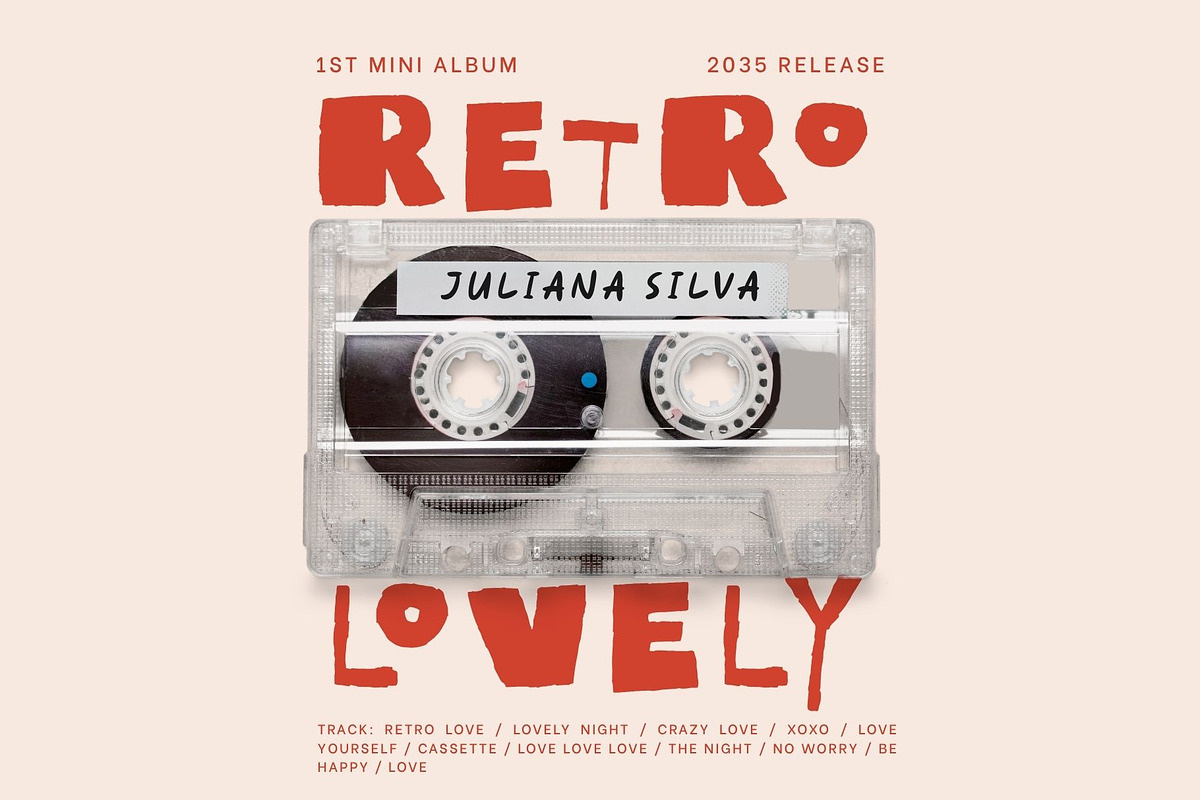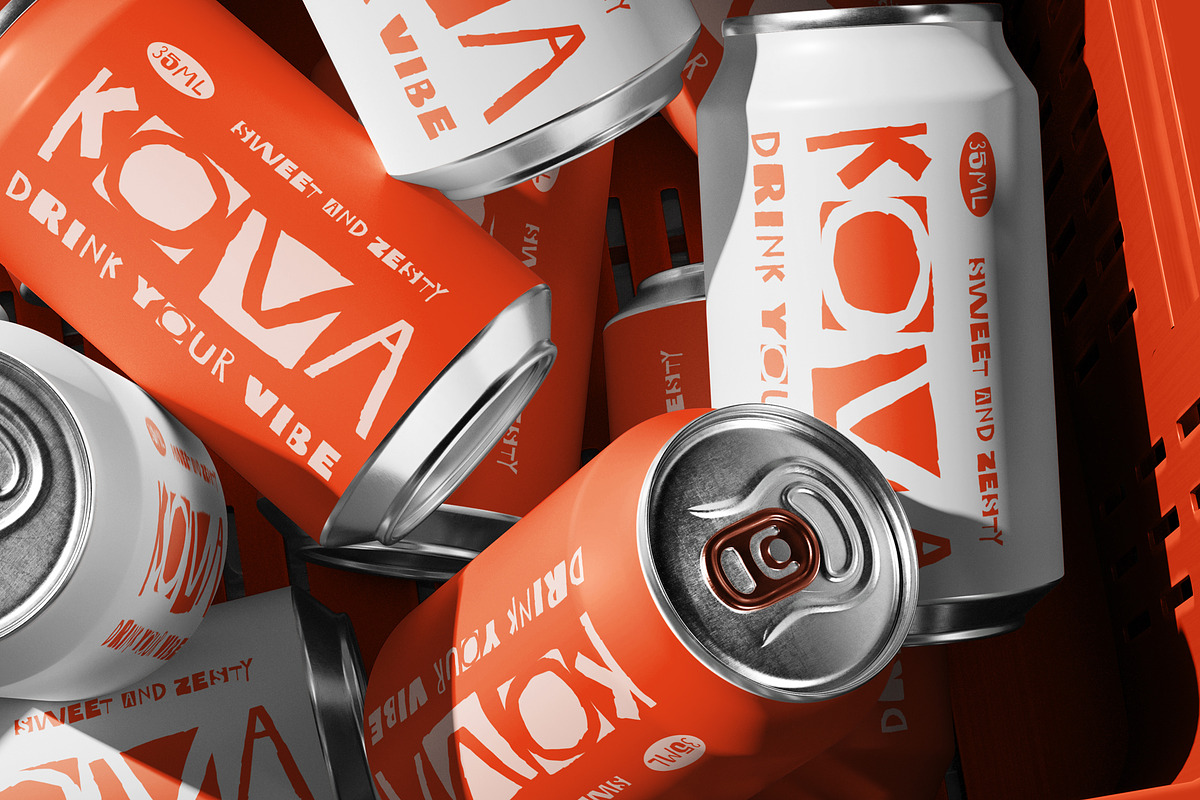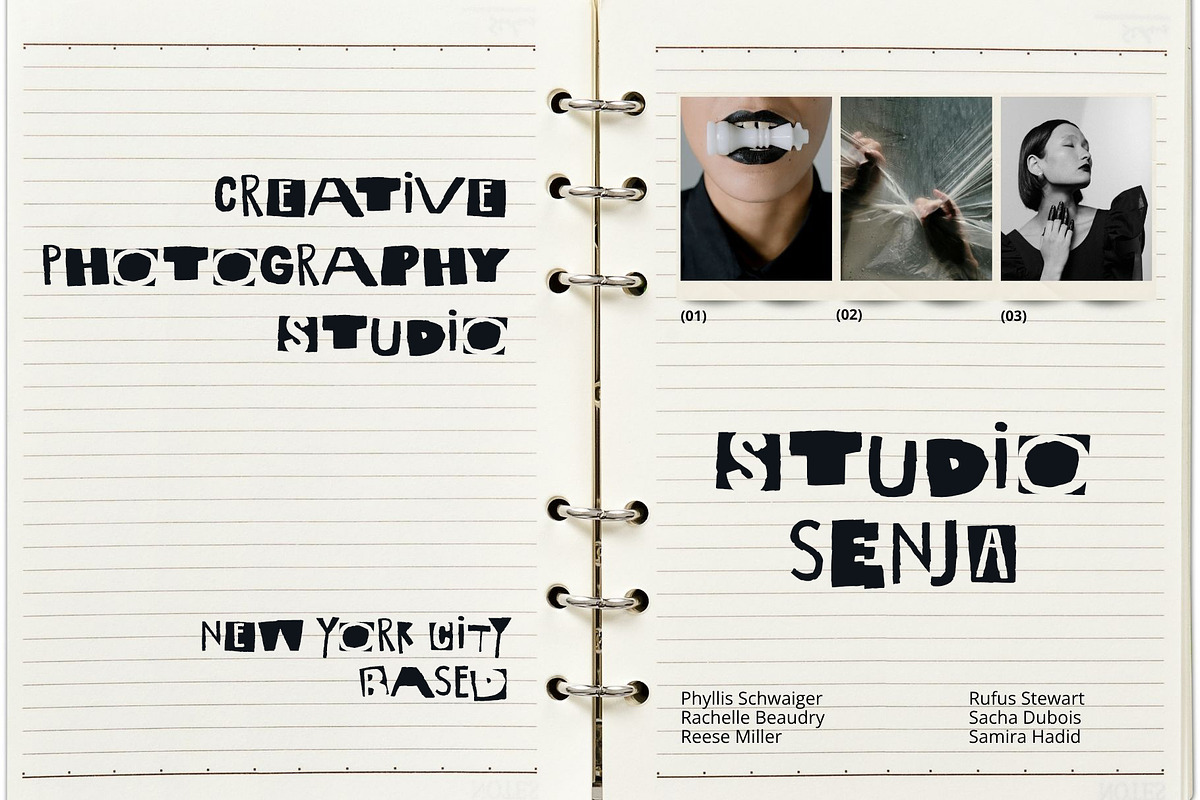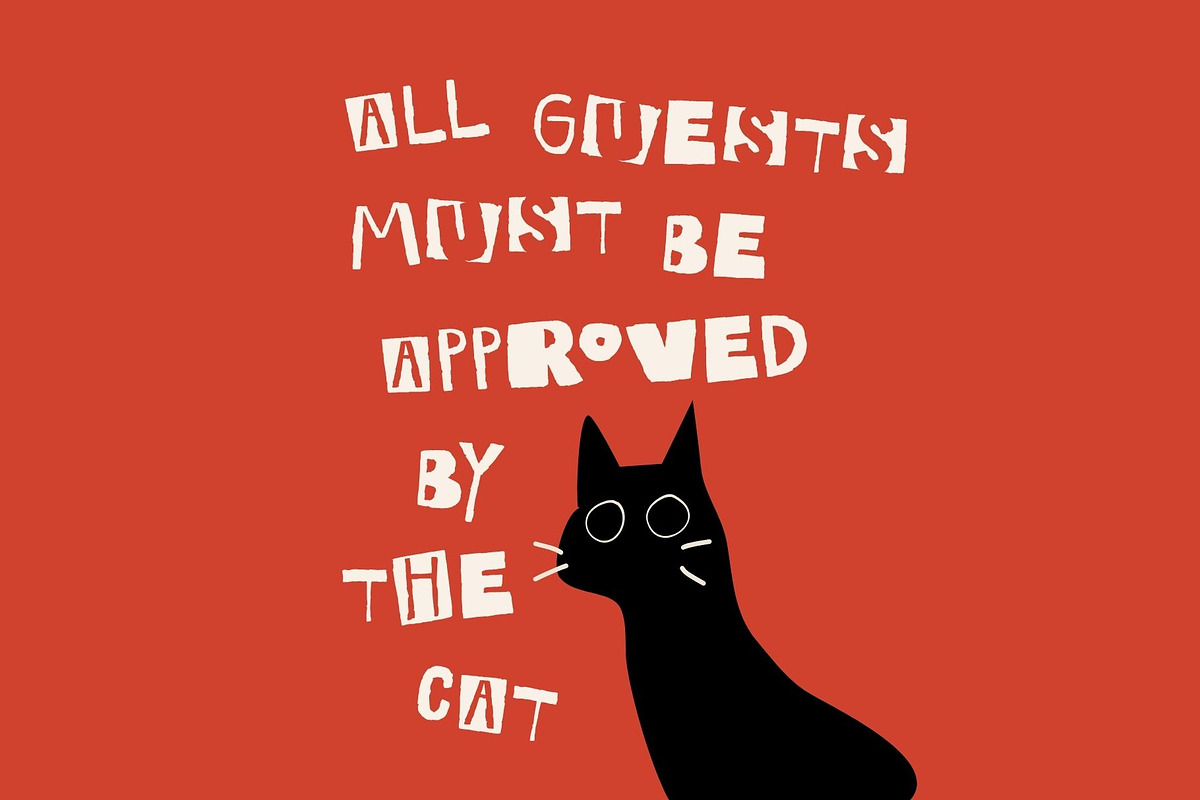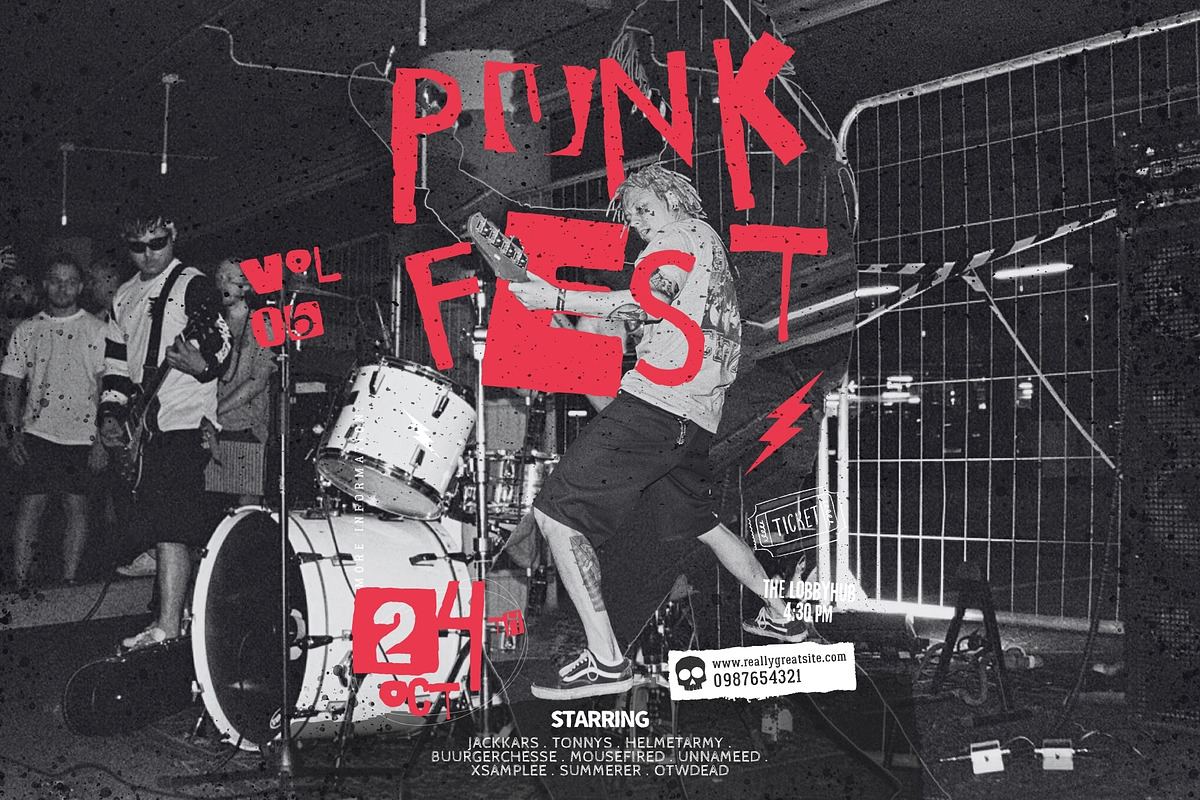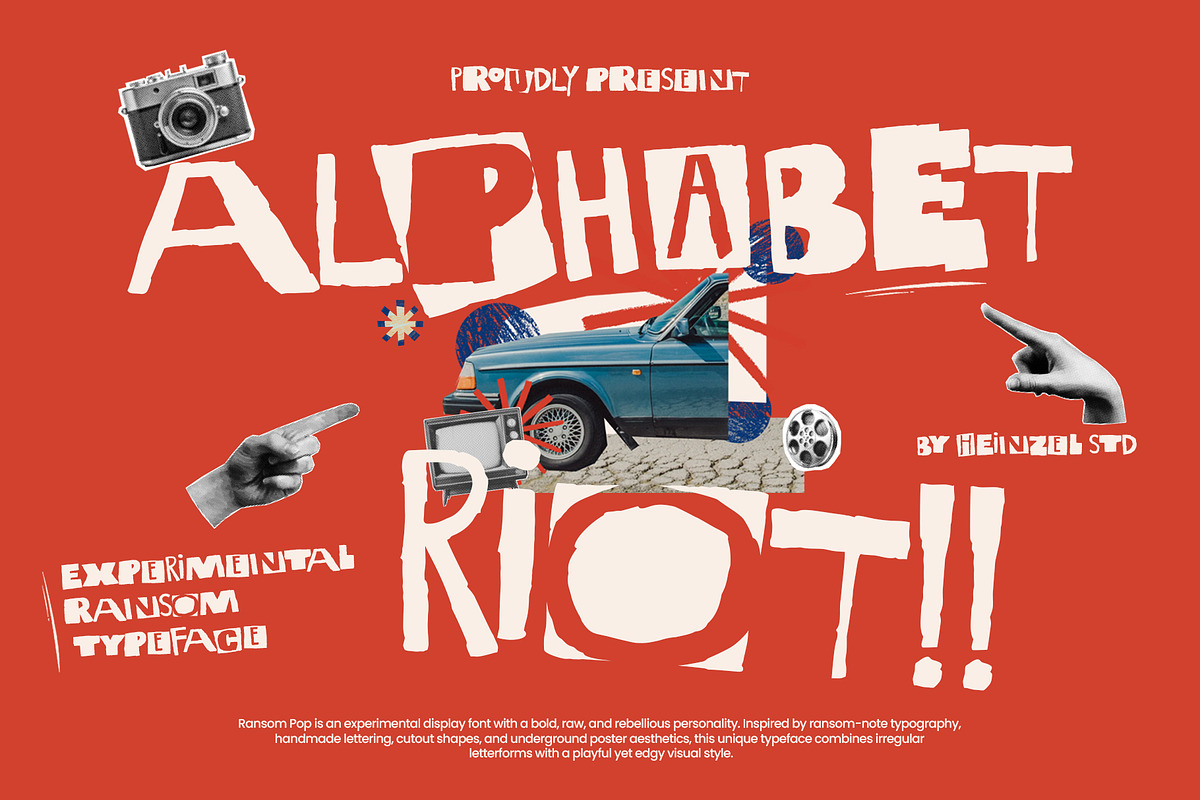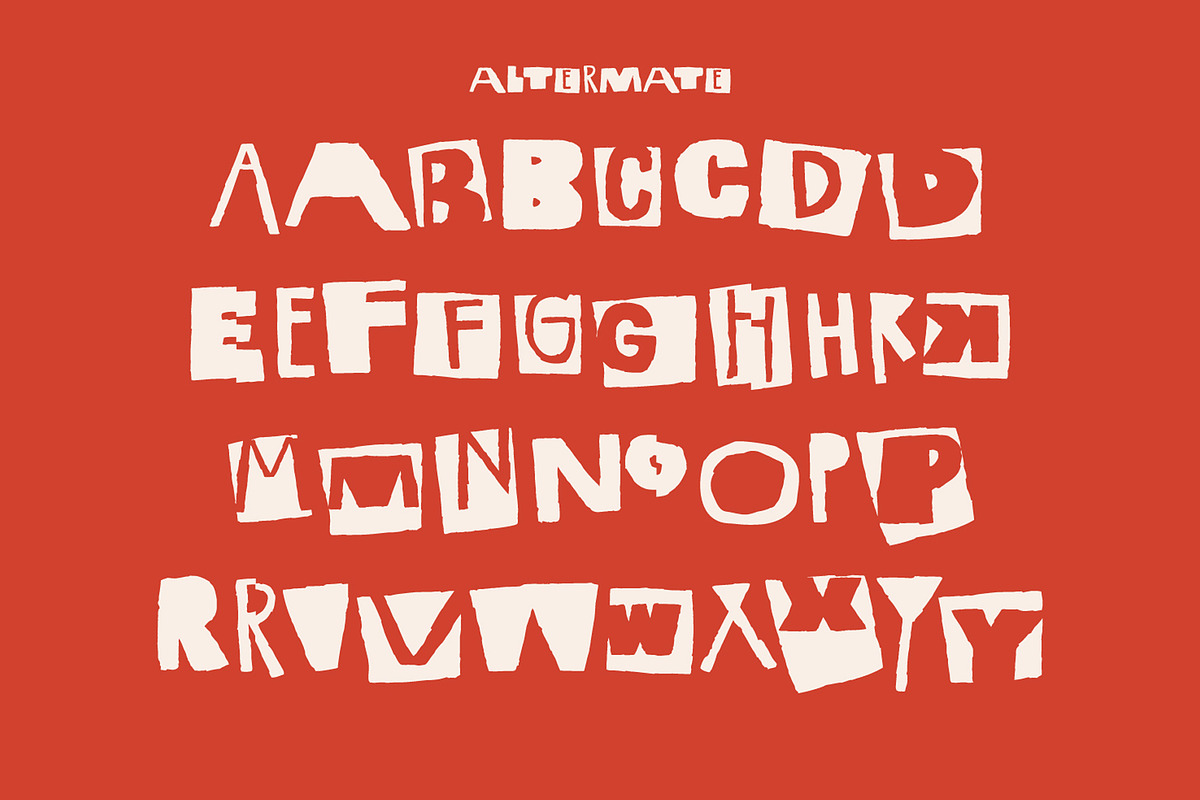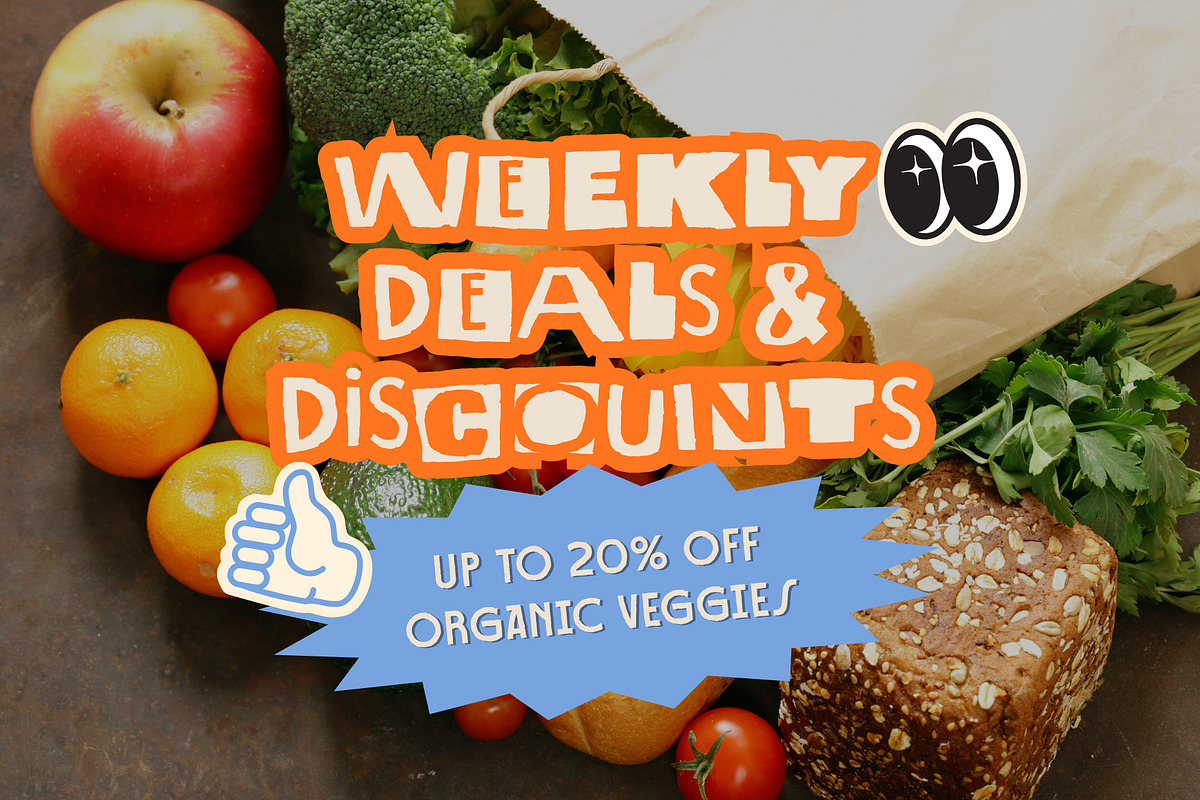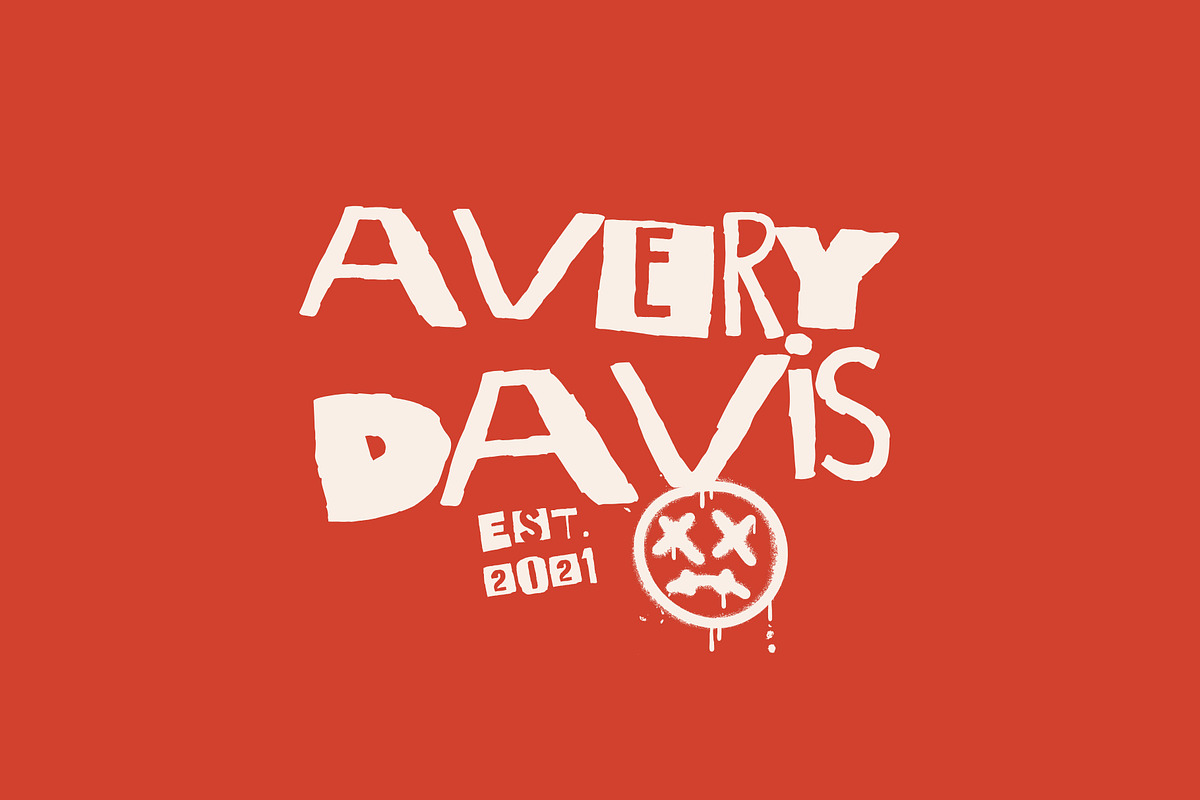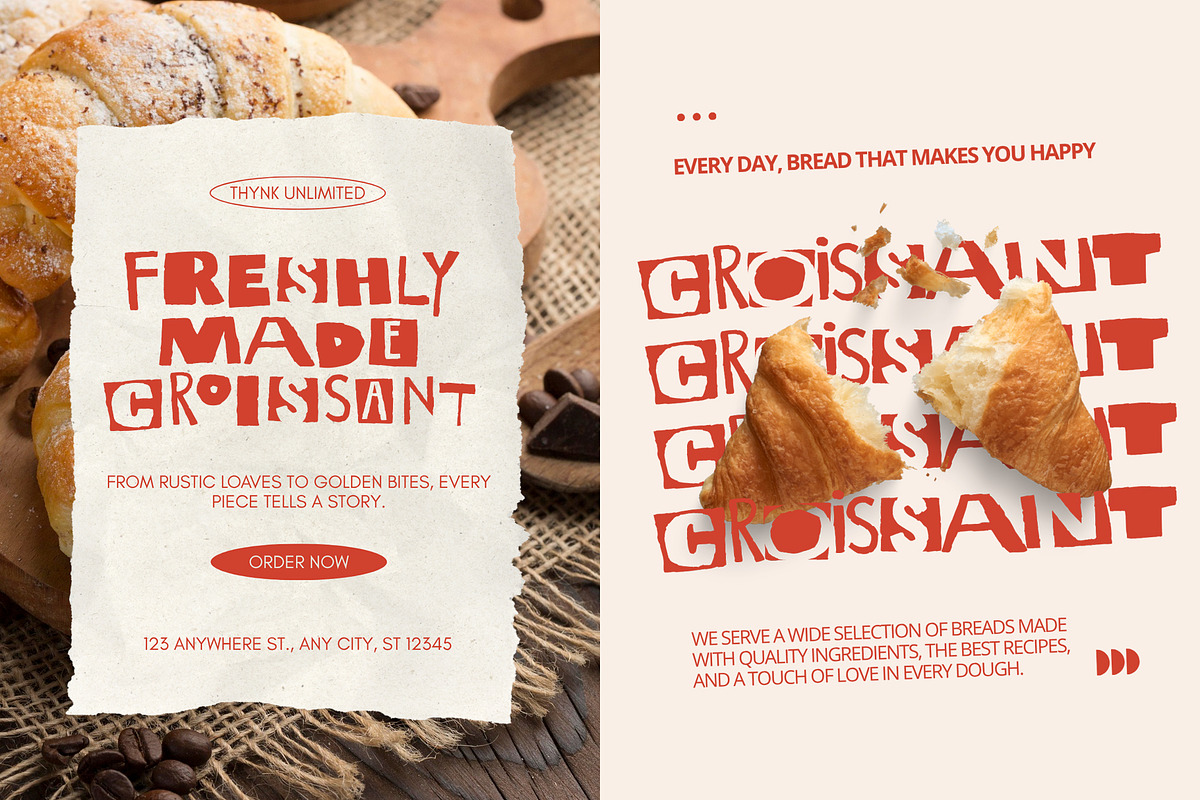
Alphabet Riot Experimental Ransom
Alphabet Riot – Experimental Ransom Display Font
Alphabet Riot is an experimental display font created for bold, rebellious, and unconventional designs. Inspired by ransom-note typography, handmade lettering, cutout shapes, underground posters, and vintage collage aesthetics, this unique typeface brings an expressive DIY attitude to every project.
With its irregular letterforms, rough edges, playful proportions, and raw handcrafted appearance, Alphabet Riot creates an energetic visual impact that feels both nostalgic and contemporary. The unpredictable shapes give your typography a distinctive personality, making it perfect for designs that need to stand out from ordinary display fonts.
Alphabet Riot works especially well for experimental posters, album covers, music artwork, editorial designs, streetwear graphics, magazine covers, branding, packaging, stickers, social media graphics, event posters, alternative fashion designs, and creative advertising.
Whether you're creating an underground poster, rebellious brand identity, retro-inspired artwork, or an eye-catching social media campaign, Alphabet Riot adds an authentic handmade and cut-and-paste aesthetic to your typography.